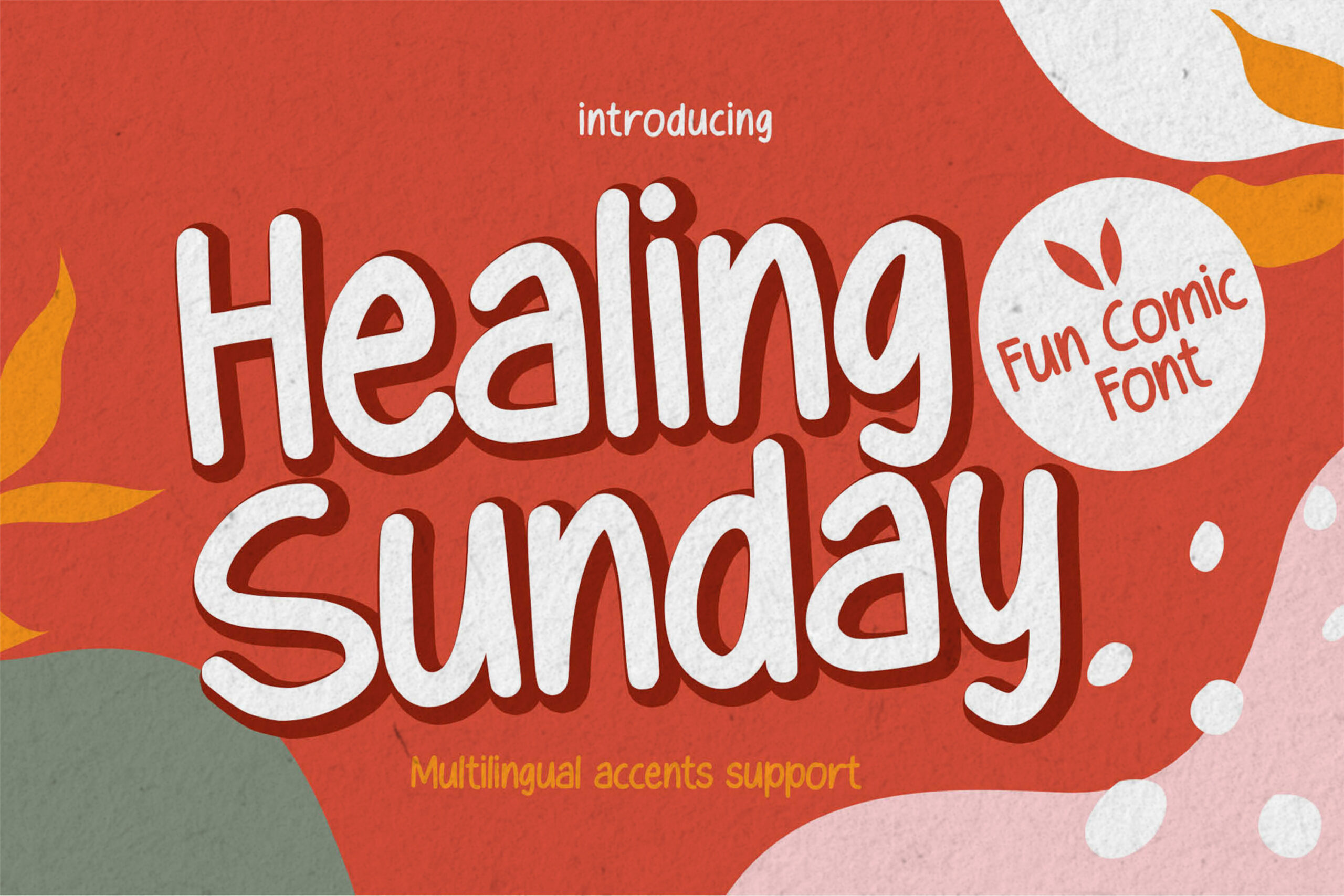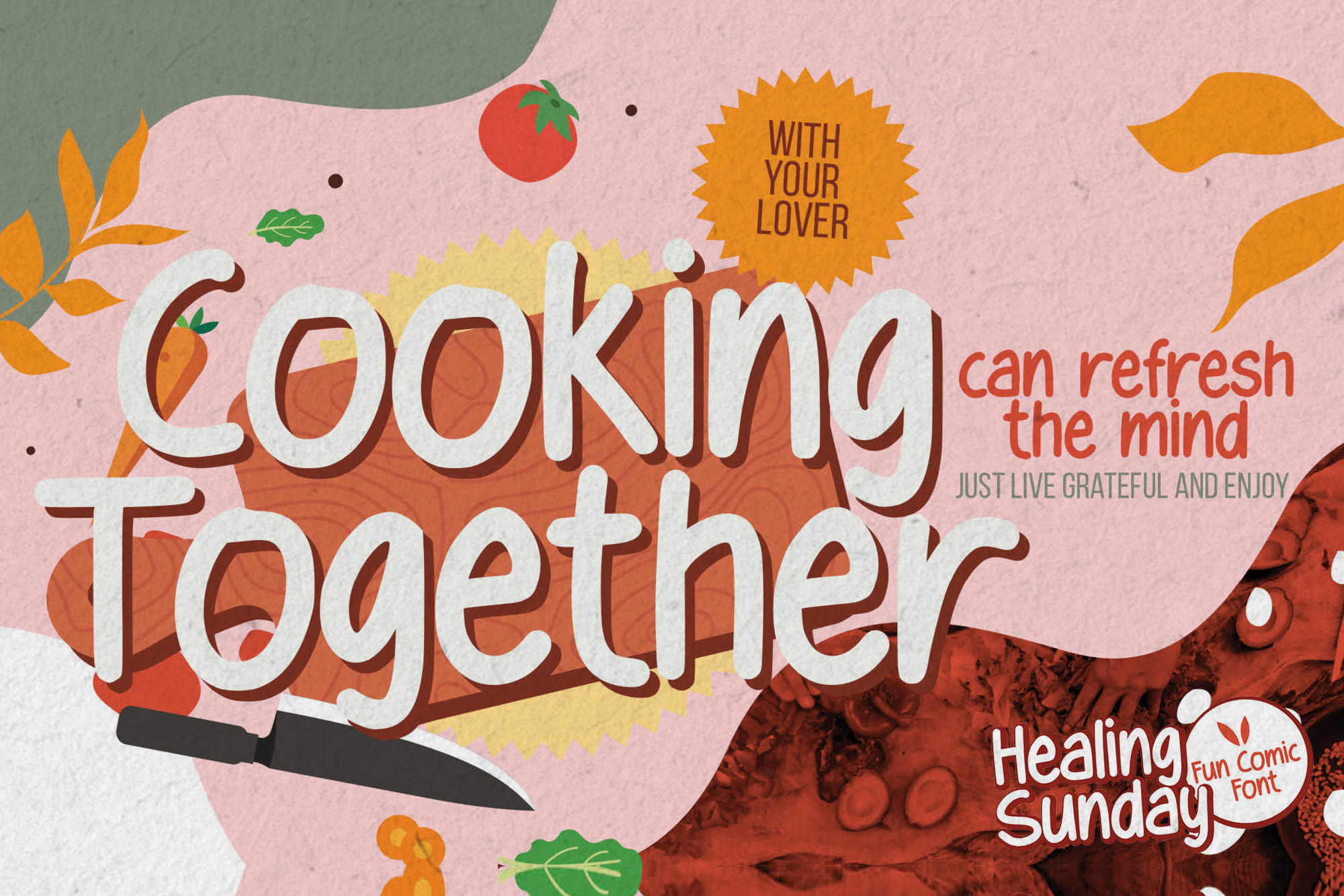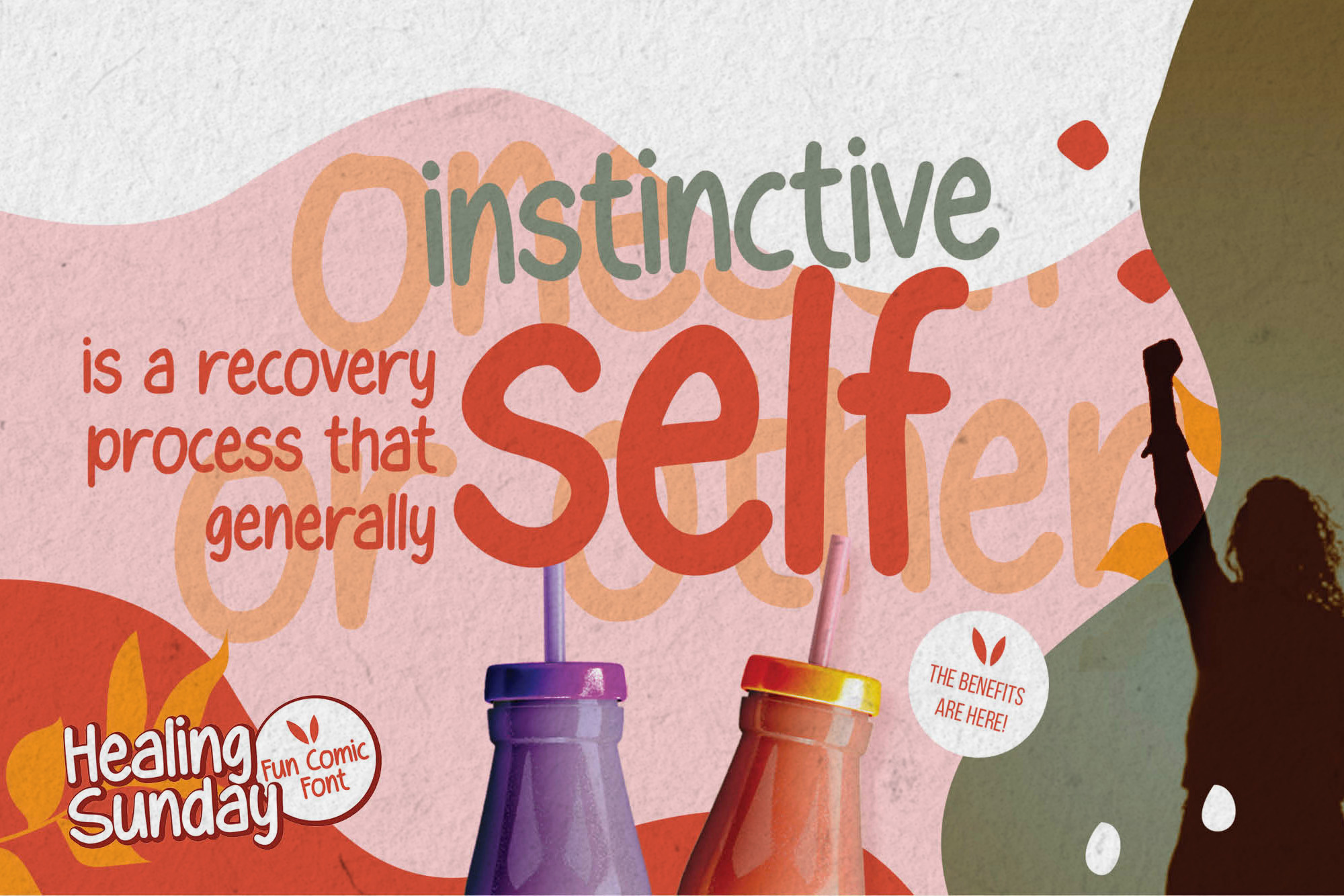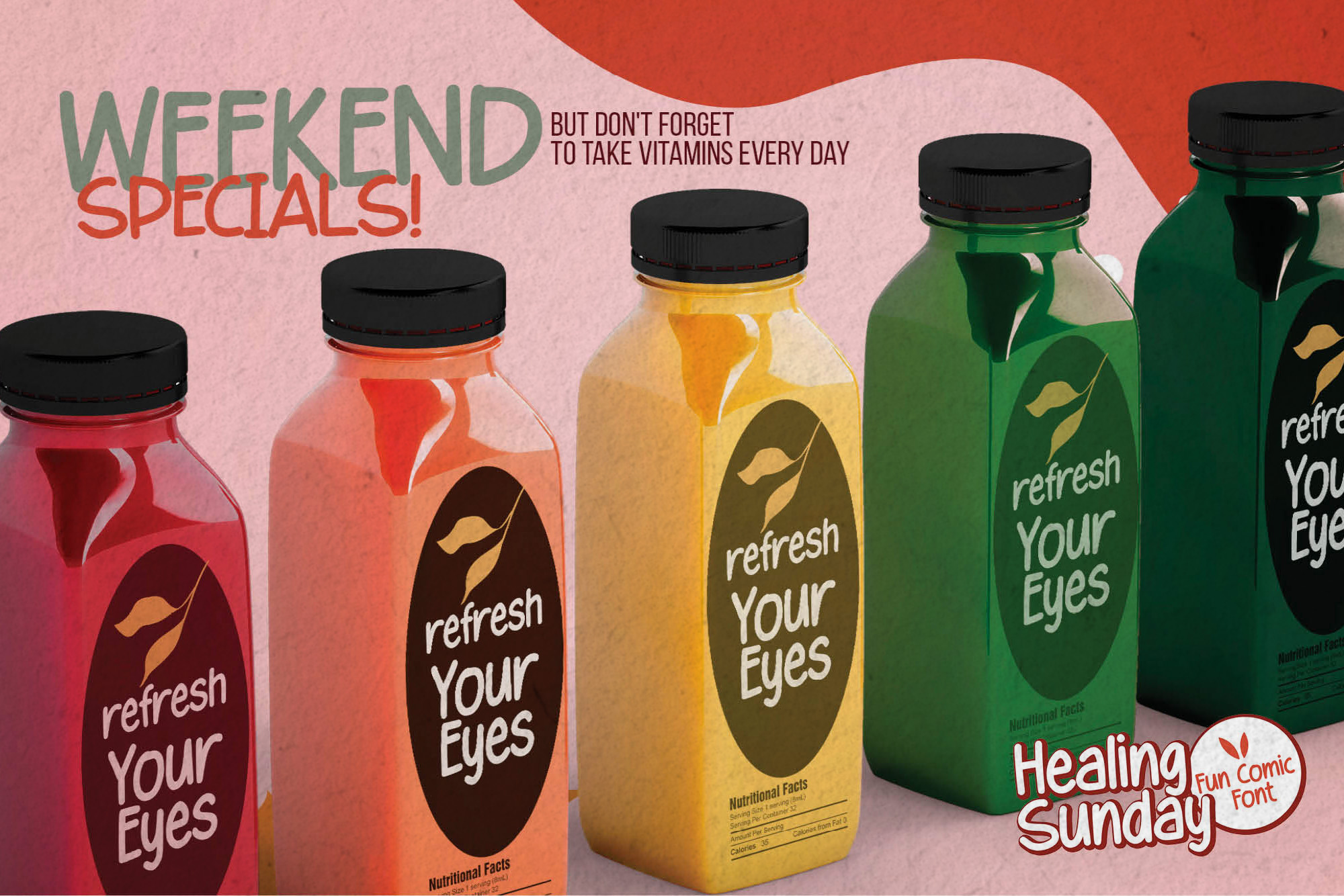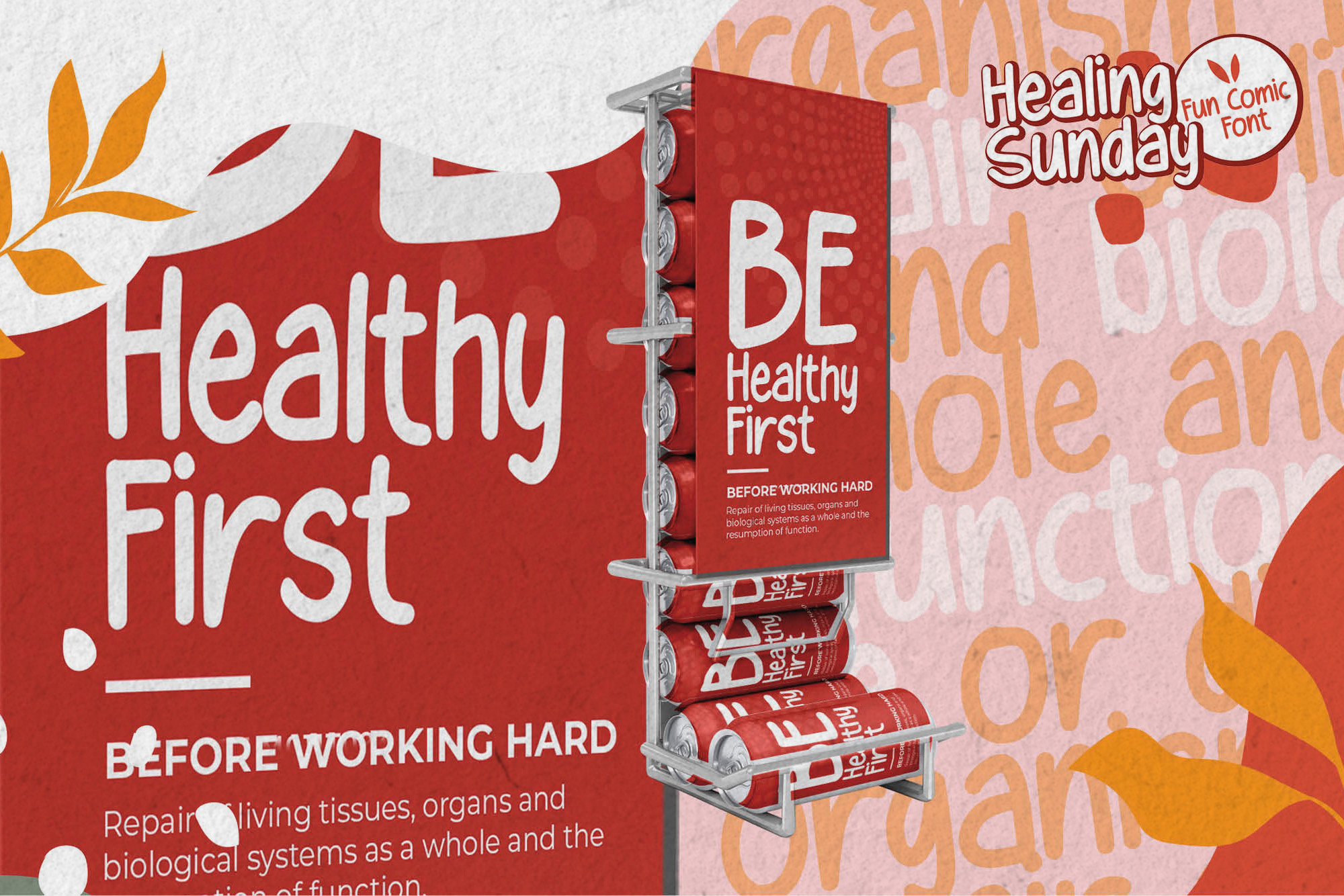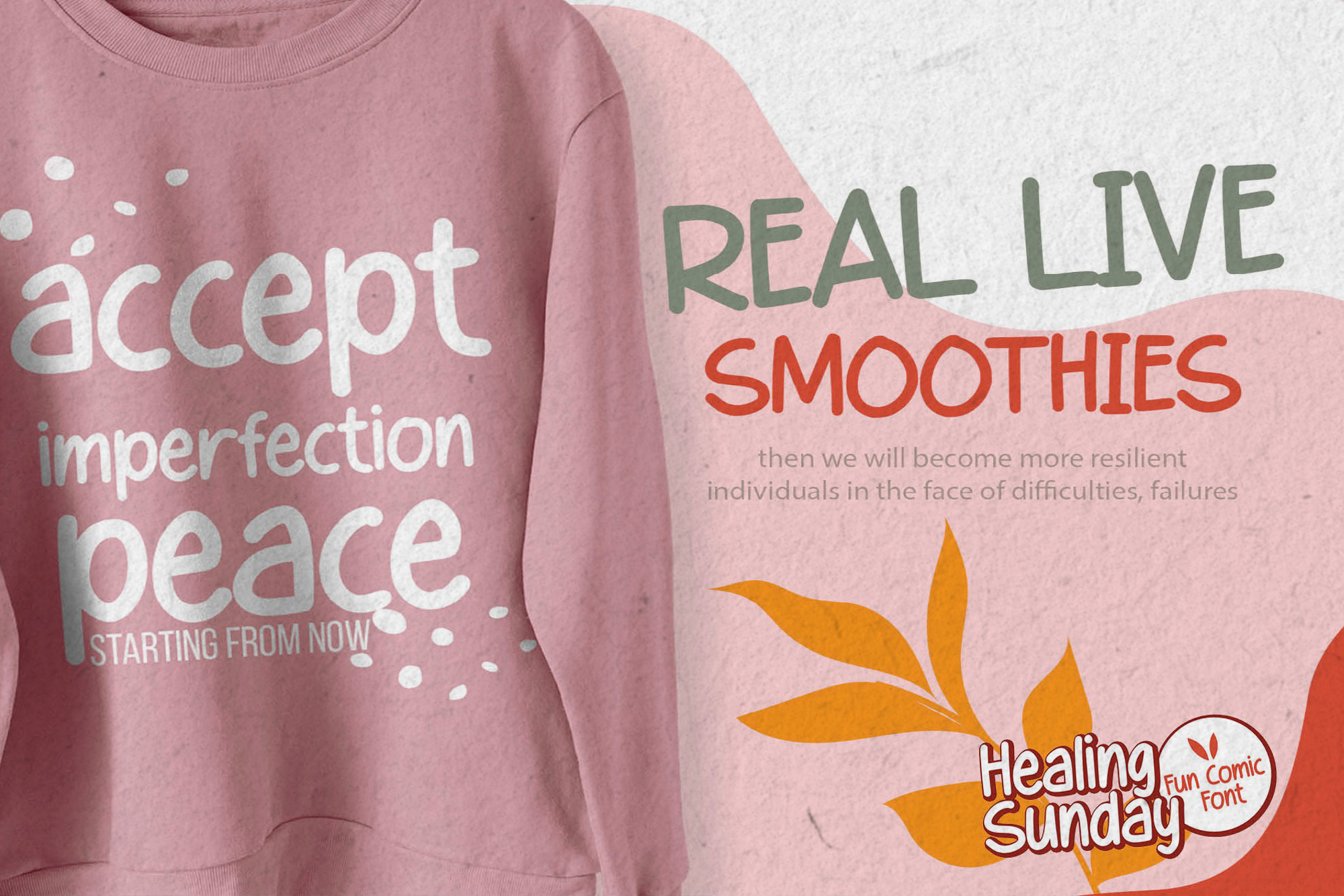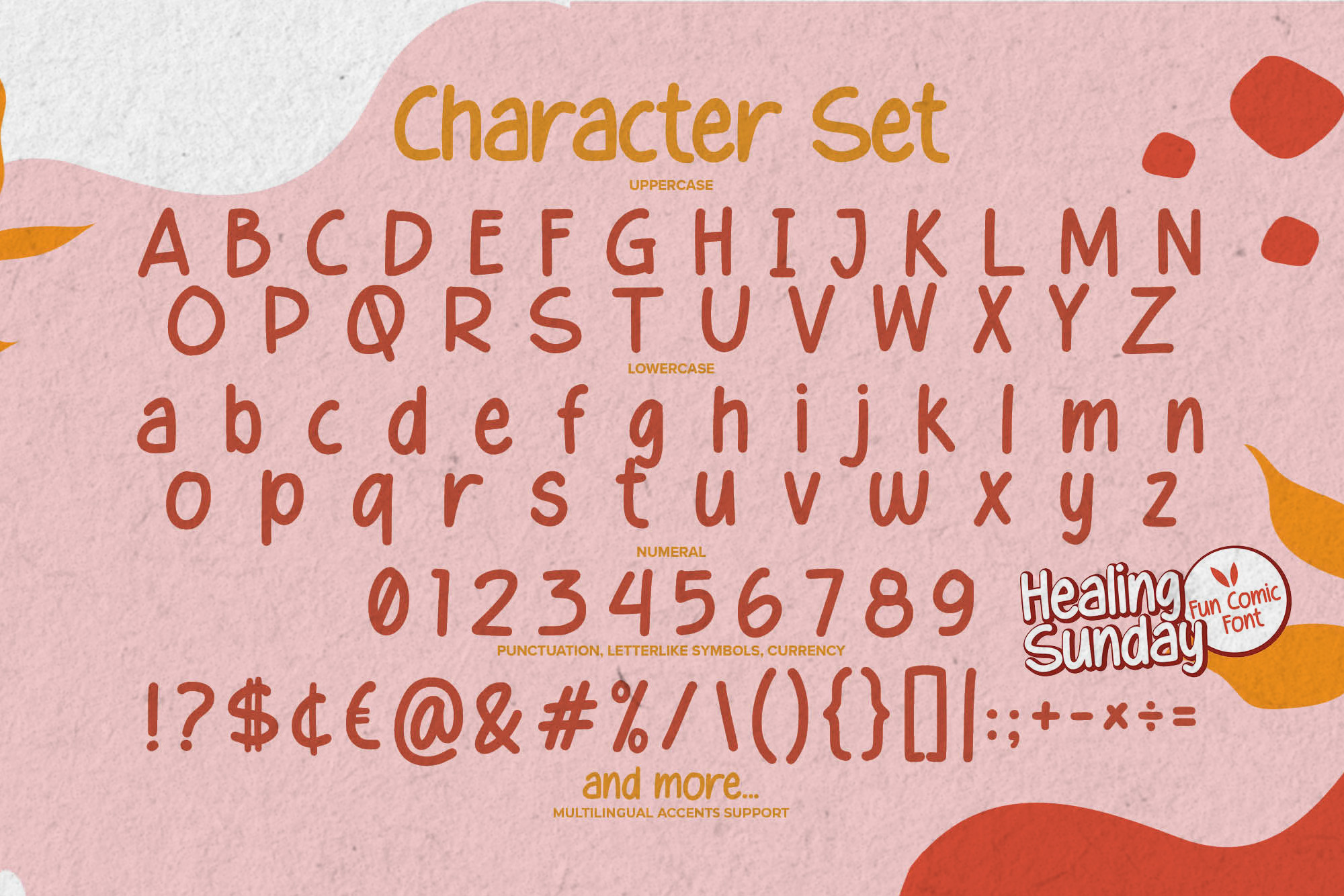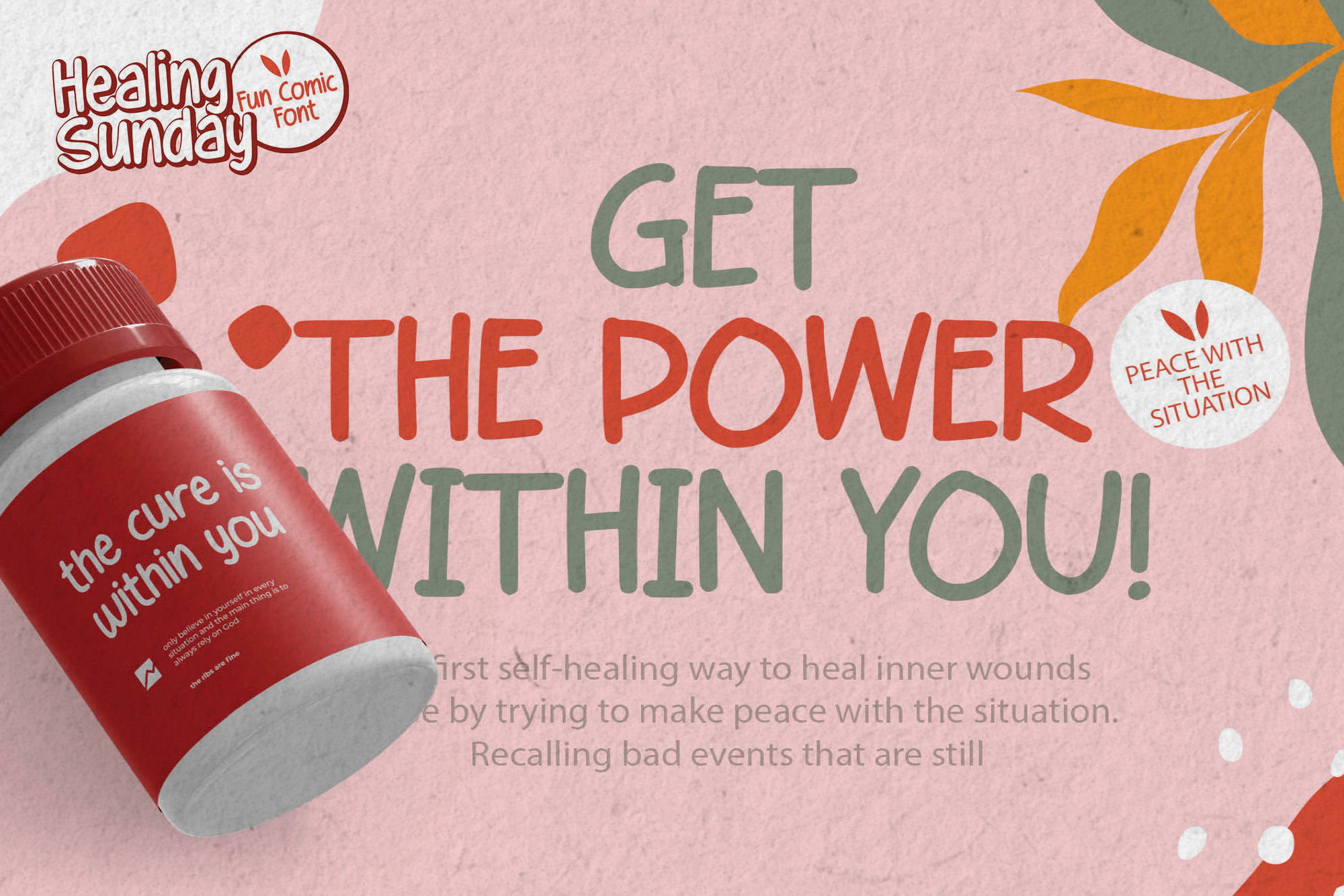
Healing Sunday – Fun Comic Font
Healing Sunday – Fun Comic Font, unique style and dramatic movement that is written casually and quickly.
The best for labels,poster,comic,project designs look modern, authentic and cool. It’s perfect for labels, quotes, posters, DIY projects, branding, packaging, greeting cards, websites, photography overlays, signs, scrapbooking, tags and so much more!  That is why Healing Sunday has a textured, and elegant characteristic more natural look.